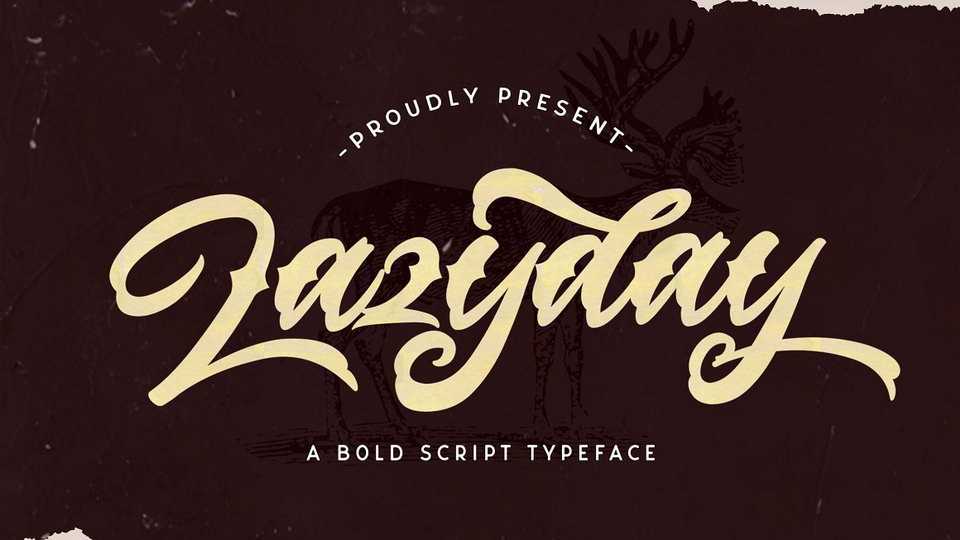
Download Lazyday font, a strong and bold hand lettered script. Lazyday is curved and rounded in every single touch, and has an unique vintage and retro styles that’s perfect for branding.